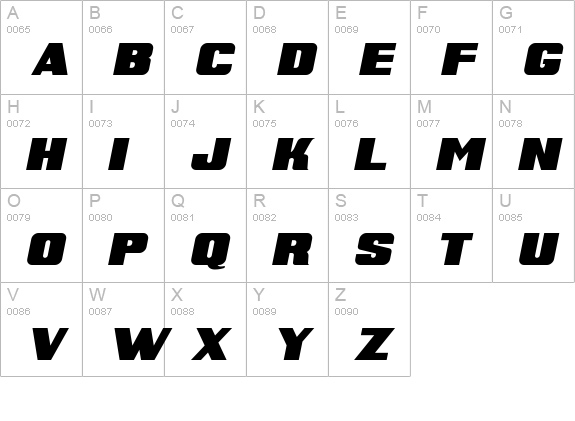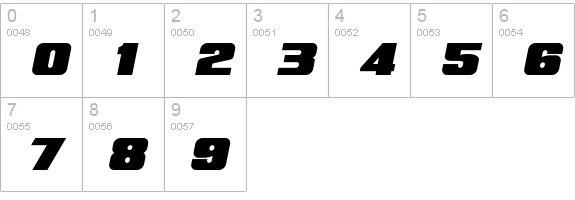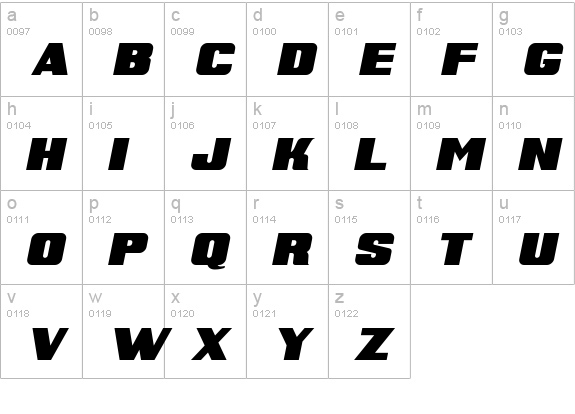
Super Retro M54 Italic is a distinctive, italic variant in the Super typeface family \xE2\x80\x94 well suited to design and typography projects.
Super Retro M54 Italic font is a stylish and captivating typeface that perfectly captures the essence of the retro era. With its bold and slanted letterforms, this font exudes a sense of nostalgia and vintage charm. Designed with utmost attention to detail, Super Retro M54 Italic font is ideal for adding a touch of old-school flair to any project. Whether you're designing a poster for a 70s-themed party or creating a vintage-inspired logo, this font is sure to make a lasting impression. What makes Super Retro M54 Italic font even more appealing is that it is available for free. Yes, you read that right - this incredible font can be freely downloaded at FontsMarket.com. This means that you can enhance your designs without having to spend a fortune on expensive fonts. With its unique combination of retro aesthetics and modern versatility, Super Retro M54 Italic font is a must-have for any designer or creative enthusiast. Its distinctive italic style adds a sense of dynamism and vibrancy to any text, making it perfect for eye-catching headlines or attention-grabbing advertisements. So, why wait? Take advantage of this amazing opportunity and download Super Retro M54 Italic font today, completely free of charge, at FontsMarket.com. Unleash your creativity and transport your designs back in time with this remarkable font.